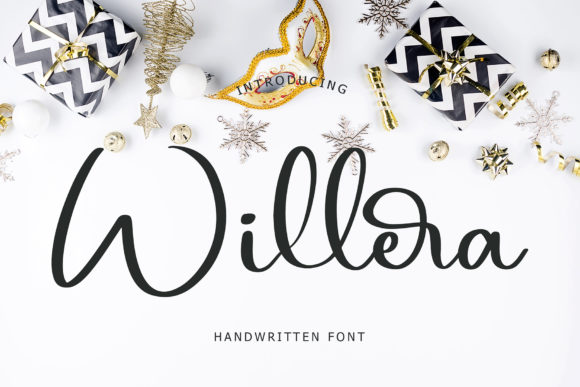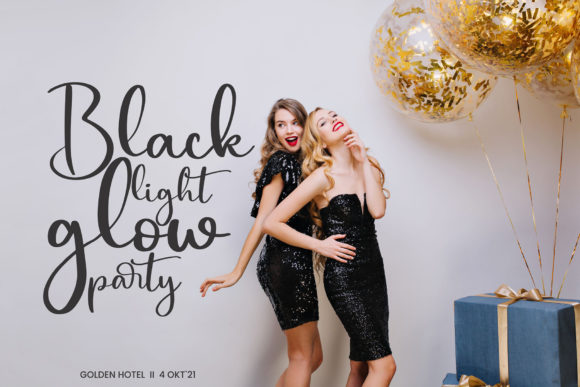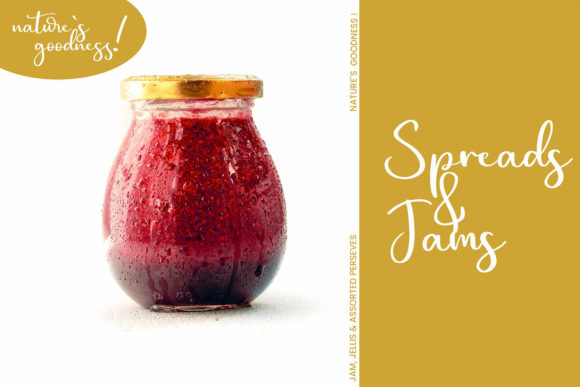
About Willera Font
Willera is a modern handwritten font, that has the ability to make your text look elegant, luxurious, and trendy!
It is perfect for branding projects, logo, wedding designs, social media posts, advertisements, product packaging, and so much more.